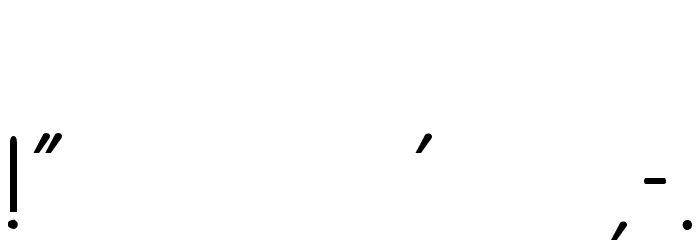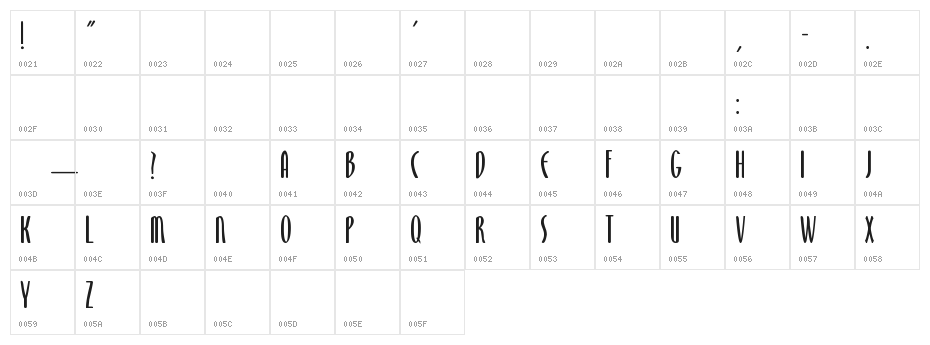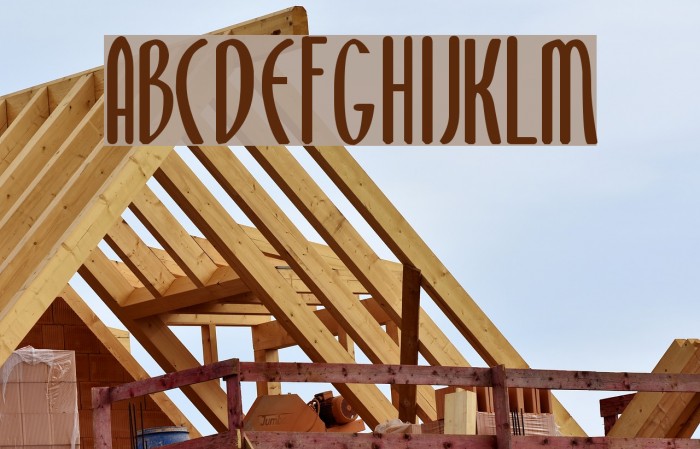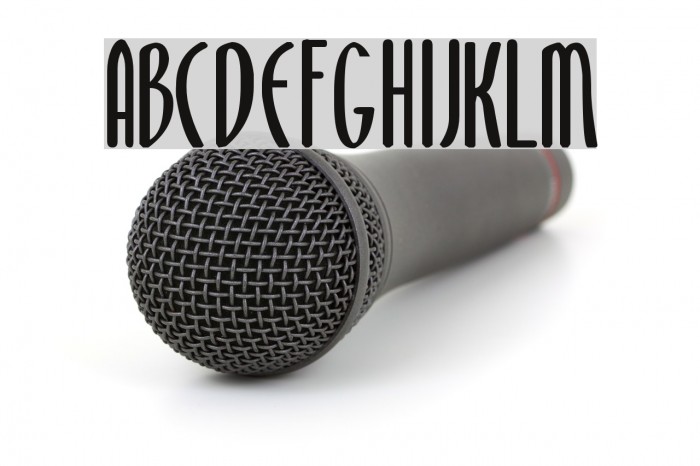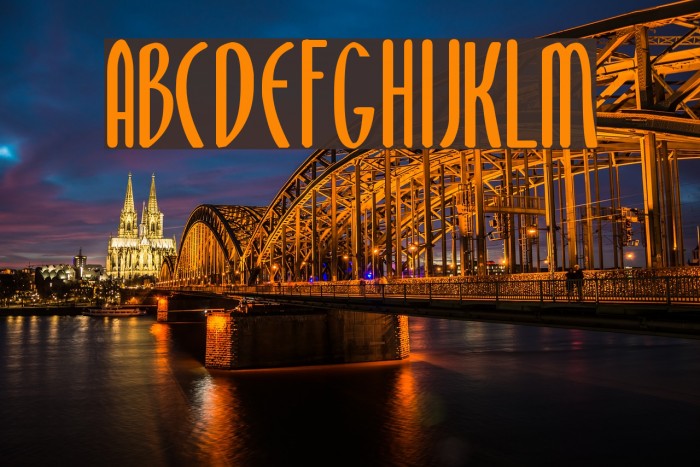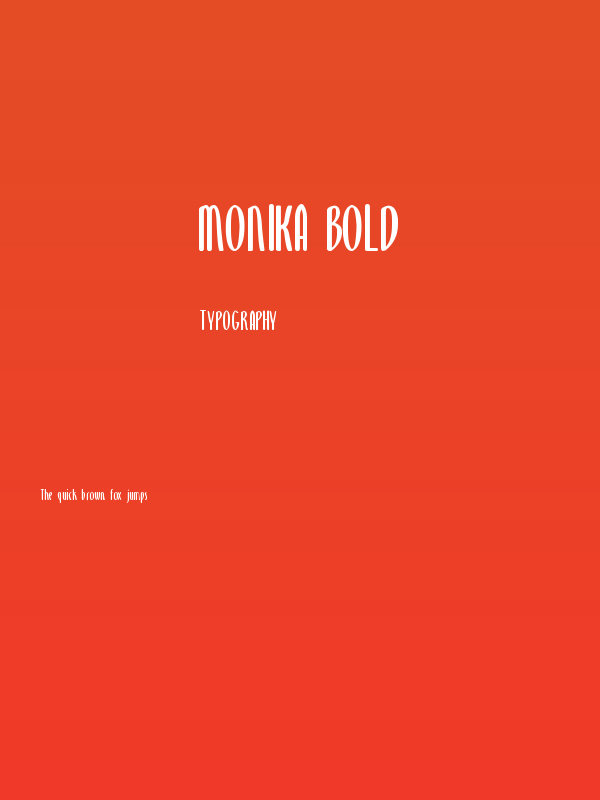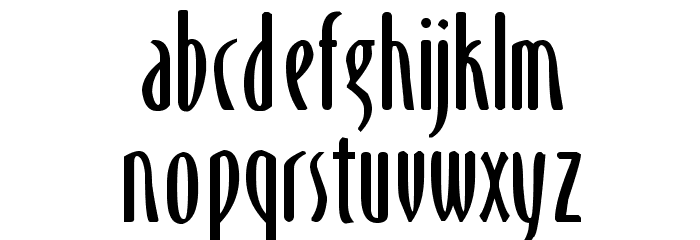
Monika Bold Font
Monika Bold Description
This font features a bold and distinctive style with elongated, narrow characters that create a striking visual impact. The uppercase letters are tall and slightly curved, giving a sense of elegance and modernity. The lowercase letters maintain a consistent height, complementing the uppercase with a smooth flow. The font includes a variety of special characters, each designed with the same attention to detail and style. The overall appearance is sleek and contemporary, making it suitable for a range of creative applications.
| Proposed Projects | Ideal for branding, posters, and headlines where a modern and bold statement is needed. |